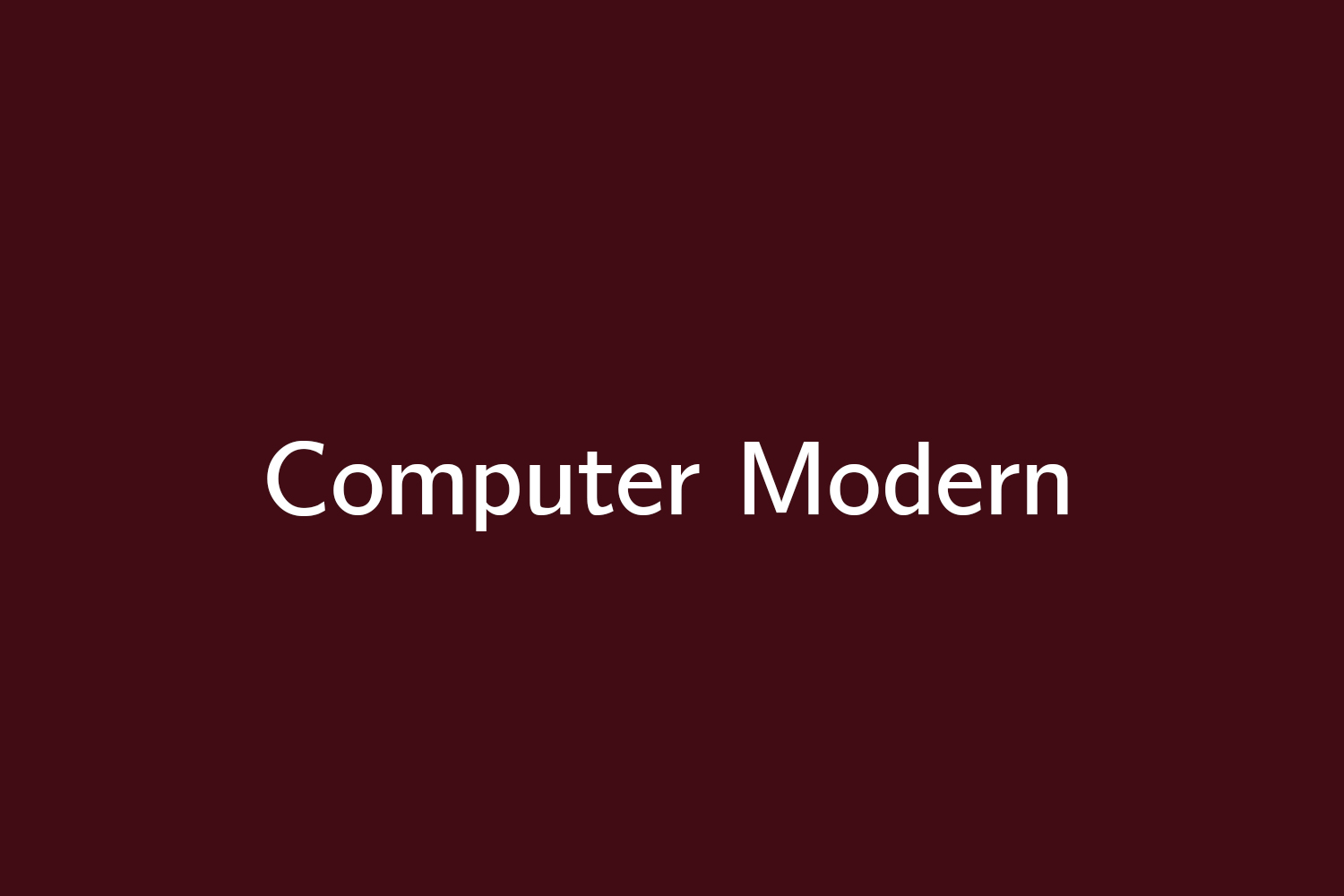
Computer Modern Free Font Family is the family of typefaces developed by Donald Knuth for TeX. It’s so good-looking that some scientists do research just so they can write it up in Computer Modern.
Designed by Donald E. Knuth